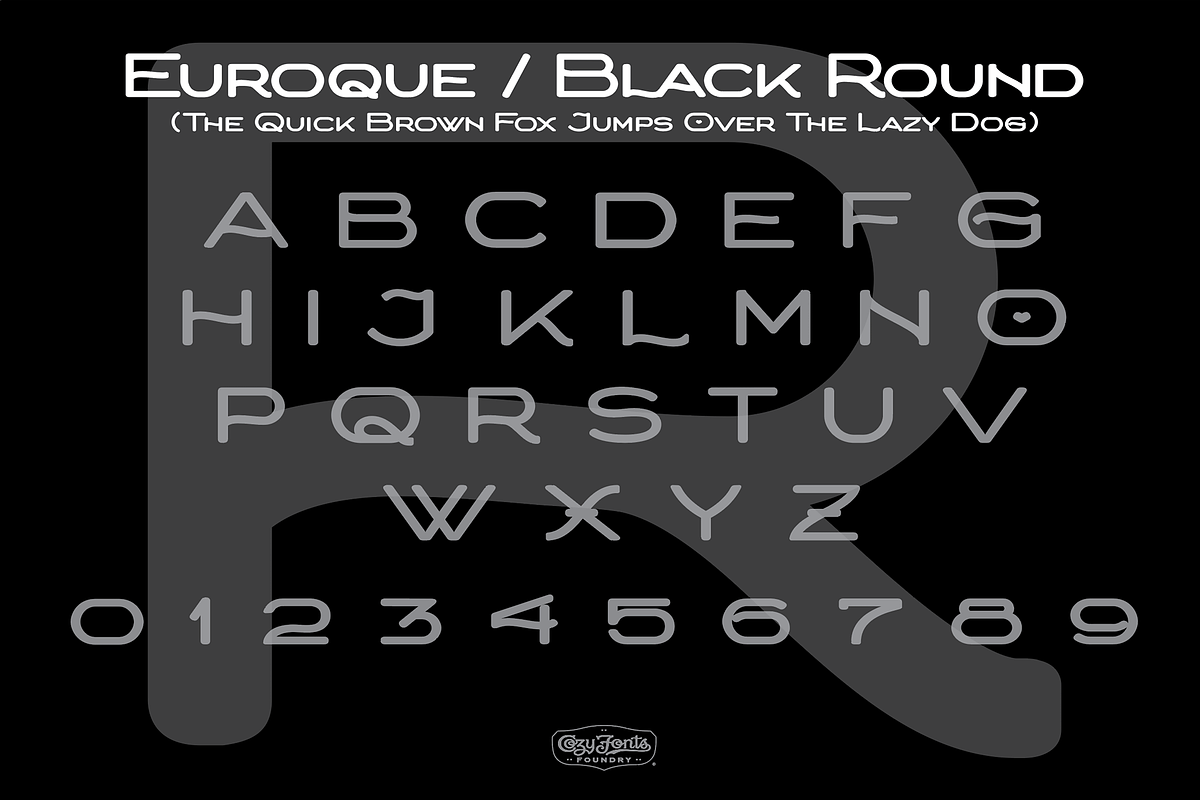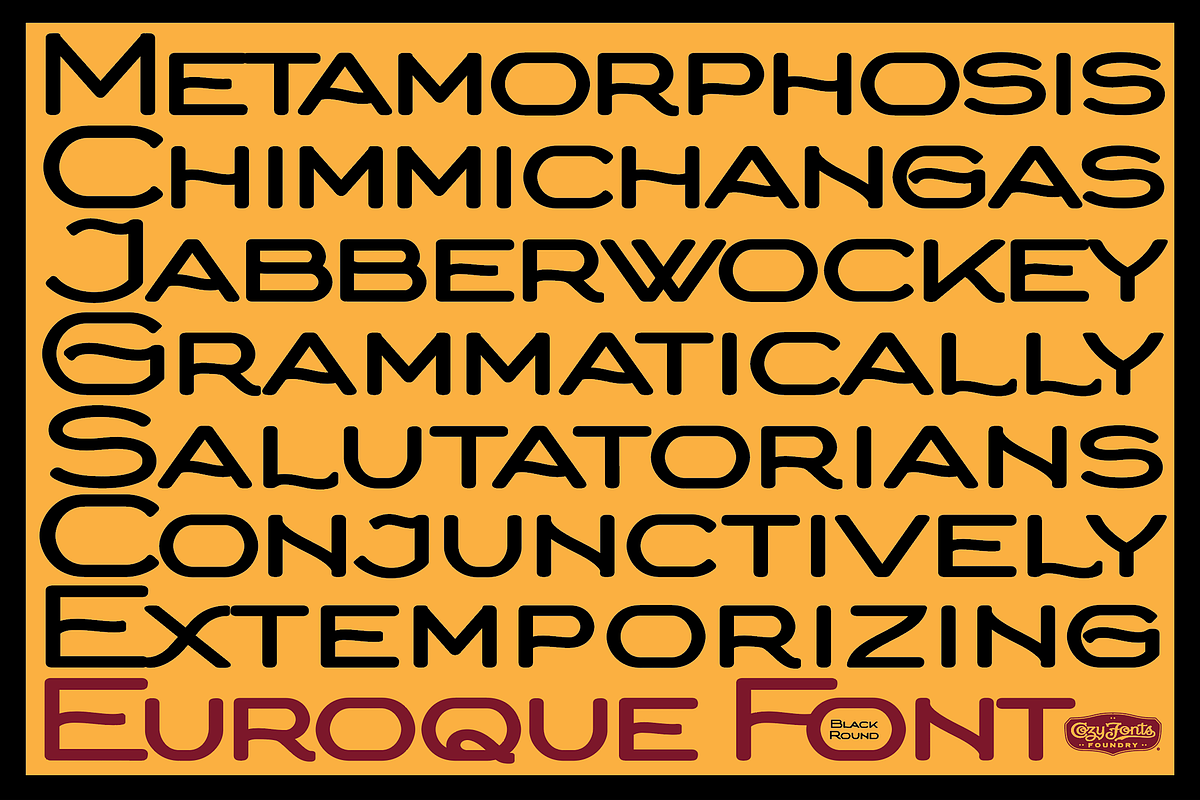
Euroque Black Round
Euroque Font Family
Euroque is the 23rd original font family from Cozyfonts Foundry, a California Font Foundry established in 2012 by designer and typographic illustrator Tom Nikosey whose career has spanned five decades.
This new font family began with pencil sketches, as all his fonts trace their beginnings. Influenced in part to European poster art of the 1920s and 1930s Euroque takes its name almost literally, European Style.
These type faces are basically designed as a Small Caps Family, where the lower case mirrors the Upper case in design but its weights are compatible and consistent. There are a few slight differences as you’ll see when setting your own words and sentences. There are over 380 glyphs and this font works in over 100 languages.
Horizontally elongated and smooth intersecting curves are the basis and thread of this family’s characteristics. The A, R, K, N & Q are just a few glyphs that stand as its base form. There’s a rhythm to these characters that when put into words and sentences gives the viewer a sense of vintage space.
This font family currently exists as five styles : Light, Medium, Bold, Extra Bold, and Black Round. There are subtle differences in the first four members with slight weight changes. The Black Round member commands attention with its bold, smooth and yet extremely powerful & legible presence.
We hope you try it and have fun setting headlines, making posters, designing brand identities, building signage, logos, monograms and whatever touches your imagination with this versatile display font family.